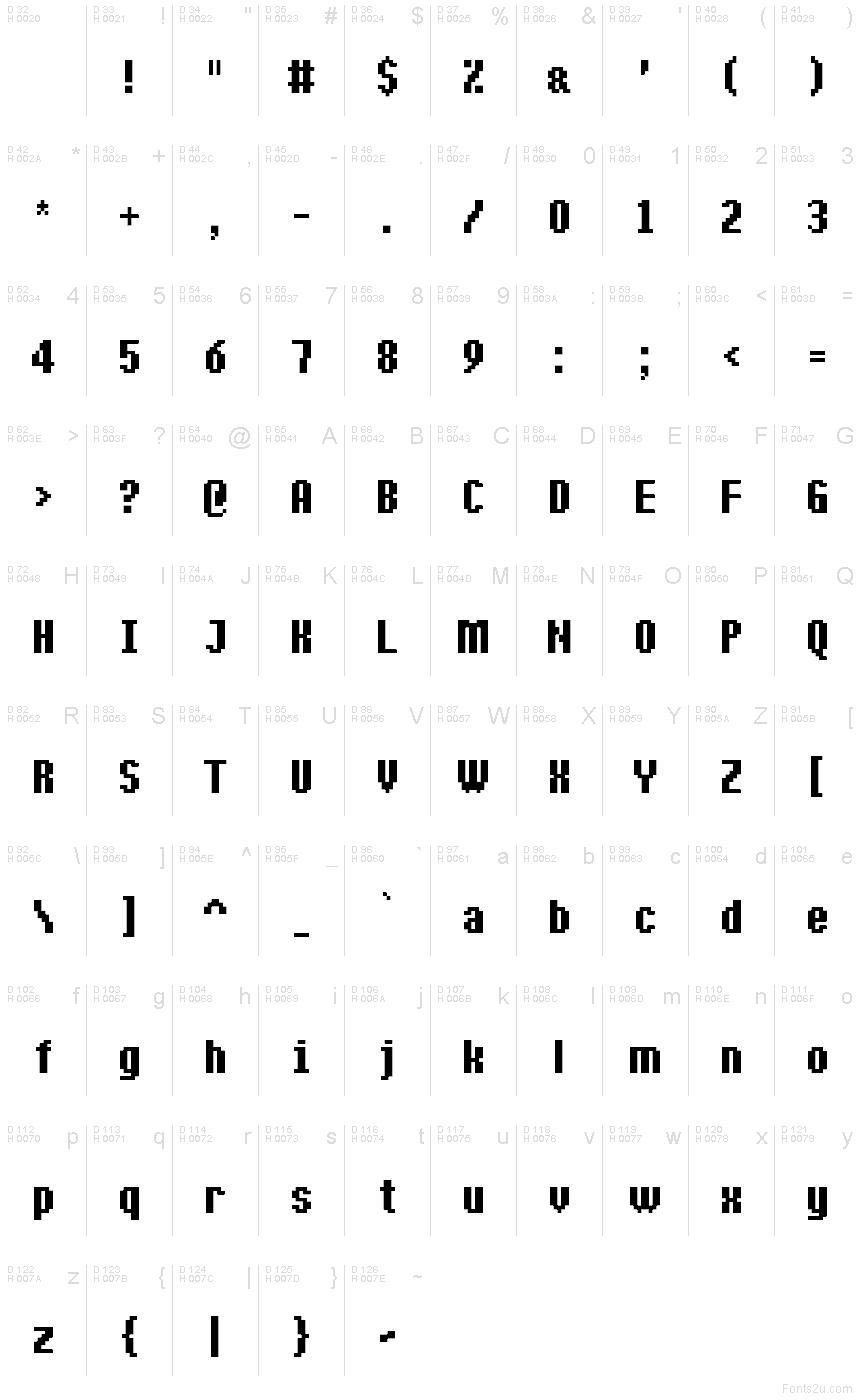
Ithaca
Ithaca font was created by GGBotNet, and it is structured, pixelated style, modernist aesthetic bitmap display raster font. The square shape of the pixels gives it an even pattern with no slanted or curvy lines. This combination results in a digital retro-style overall design that will work well in projects where feel matters more than readability.
Free for both personal and commercial use, this tech-inspired condensed geometric font can be used for headings, posters, logotype designs, typography art prints, social media ads and banners. In addition to those main uses designers can also prepare inspiring magazine covers and record arts with its help.